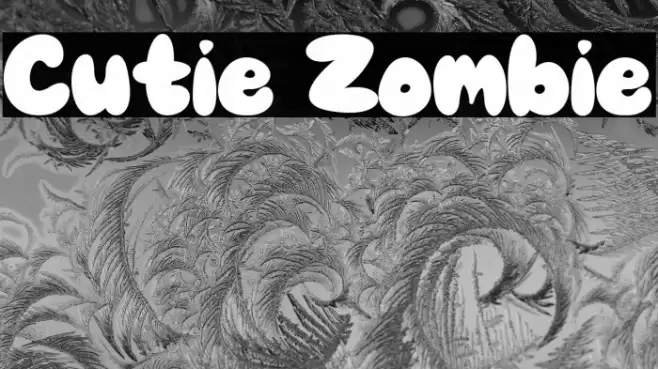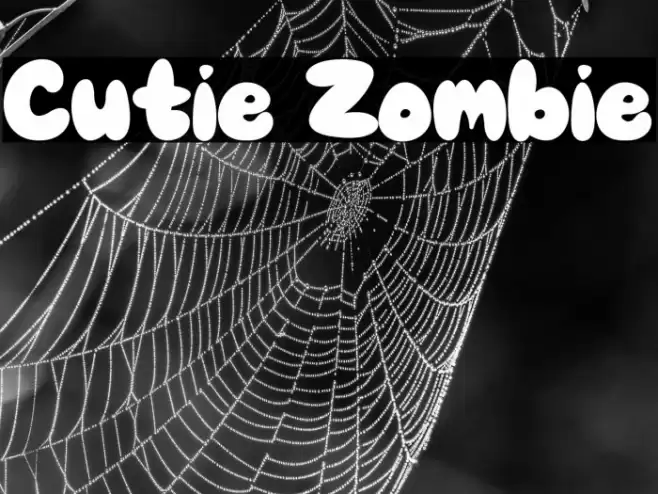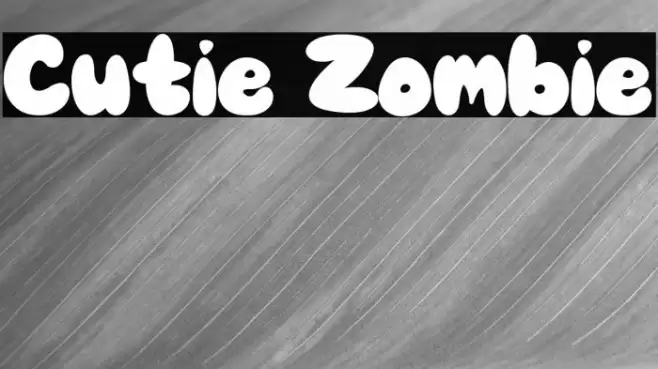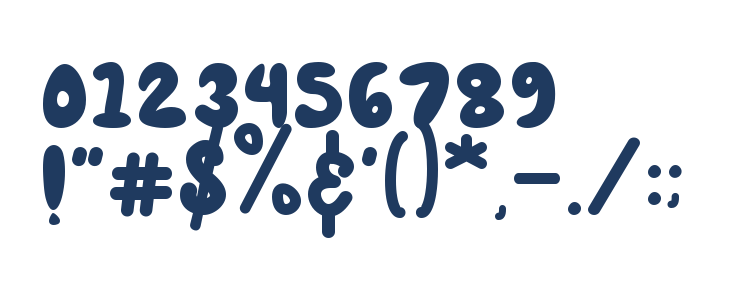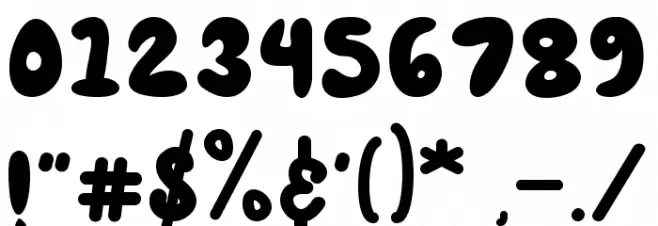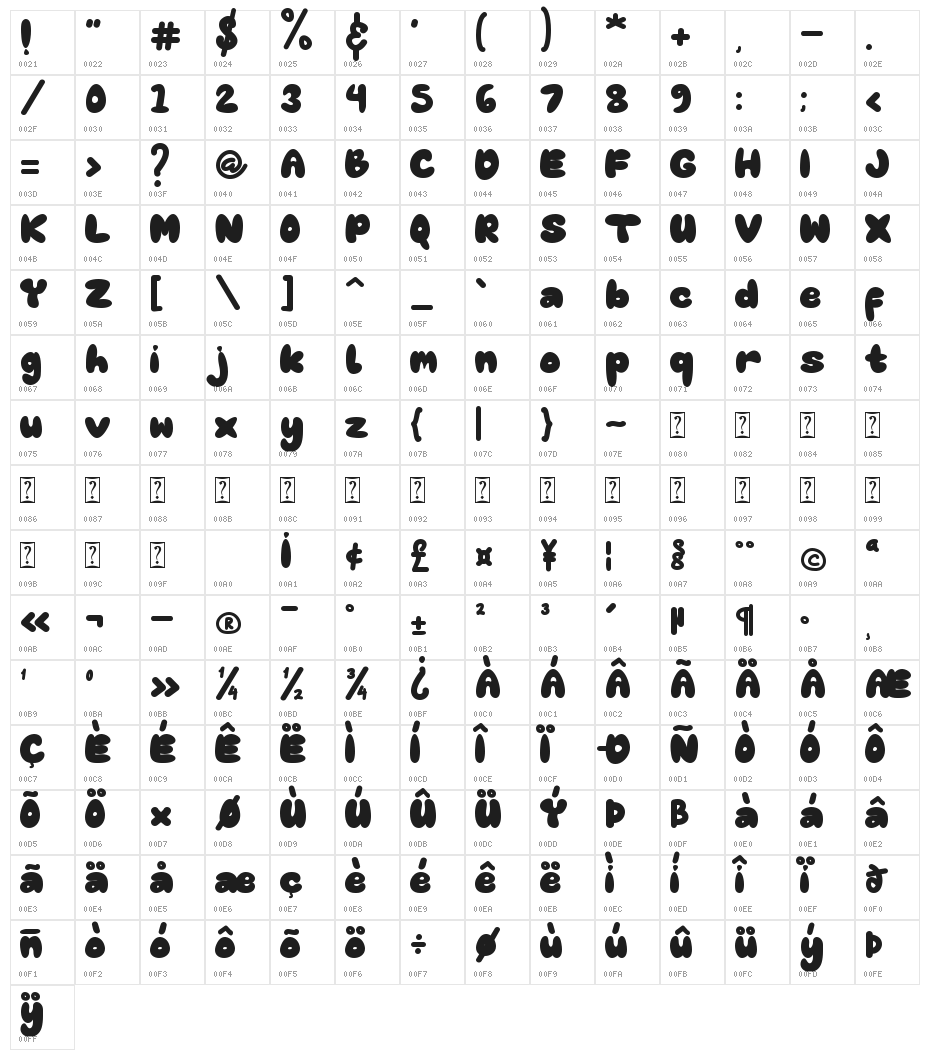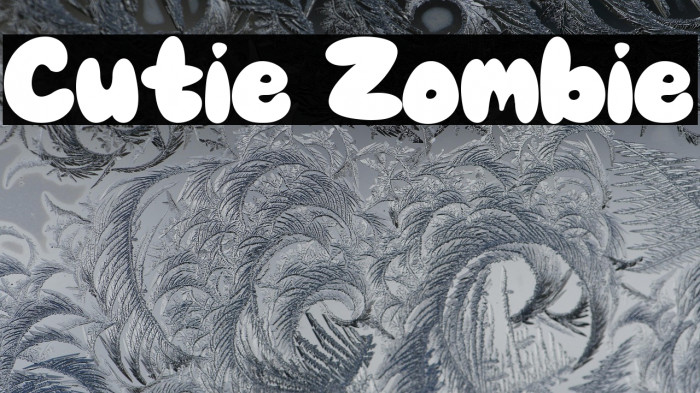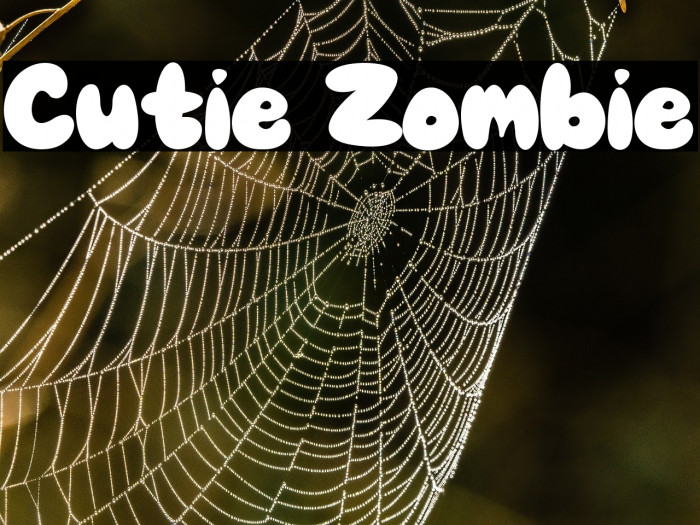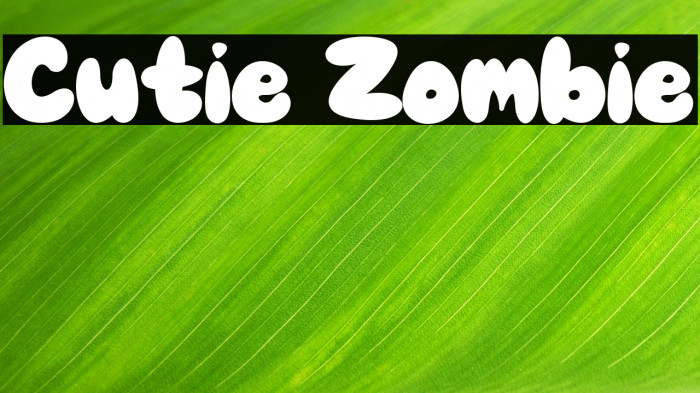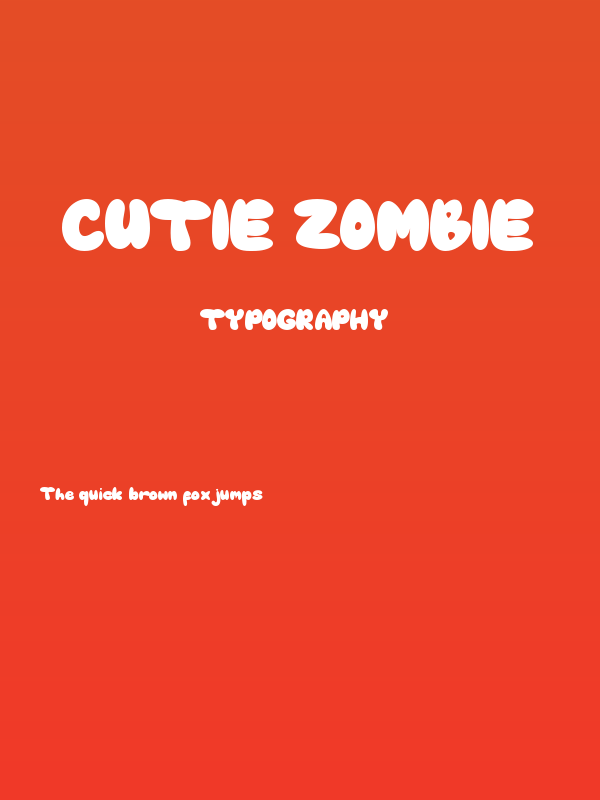
Cutie Zombie Font
Cutie Zombie Description
This playful and bold font features rounded, bubbly characters that exude a sense of fun and whimsy. The letters are thick and have a soft, almost cartoonish appearance, making them highly legible and eye-catching. The font maintains a consistent weight throughout, with smooth curves and a slightly irregular shape that adds to its charm. The numbers and special characters follow the same design principles, ensuring a cohesive look across all text elements. This font is perfect for projects that require a friendly and approachable aesthetic.
A playful, bold font with rounded, bubbly characters from Regular fonts.
- Proposed Projects: Ideal for children's books, playful branding, party invitations, and cartoon graphics.
- Overall Style: Playful